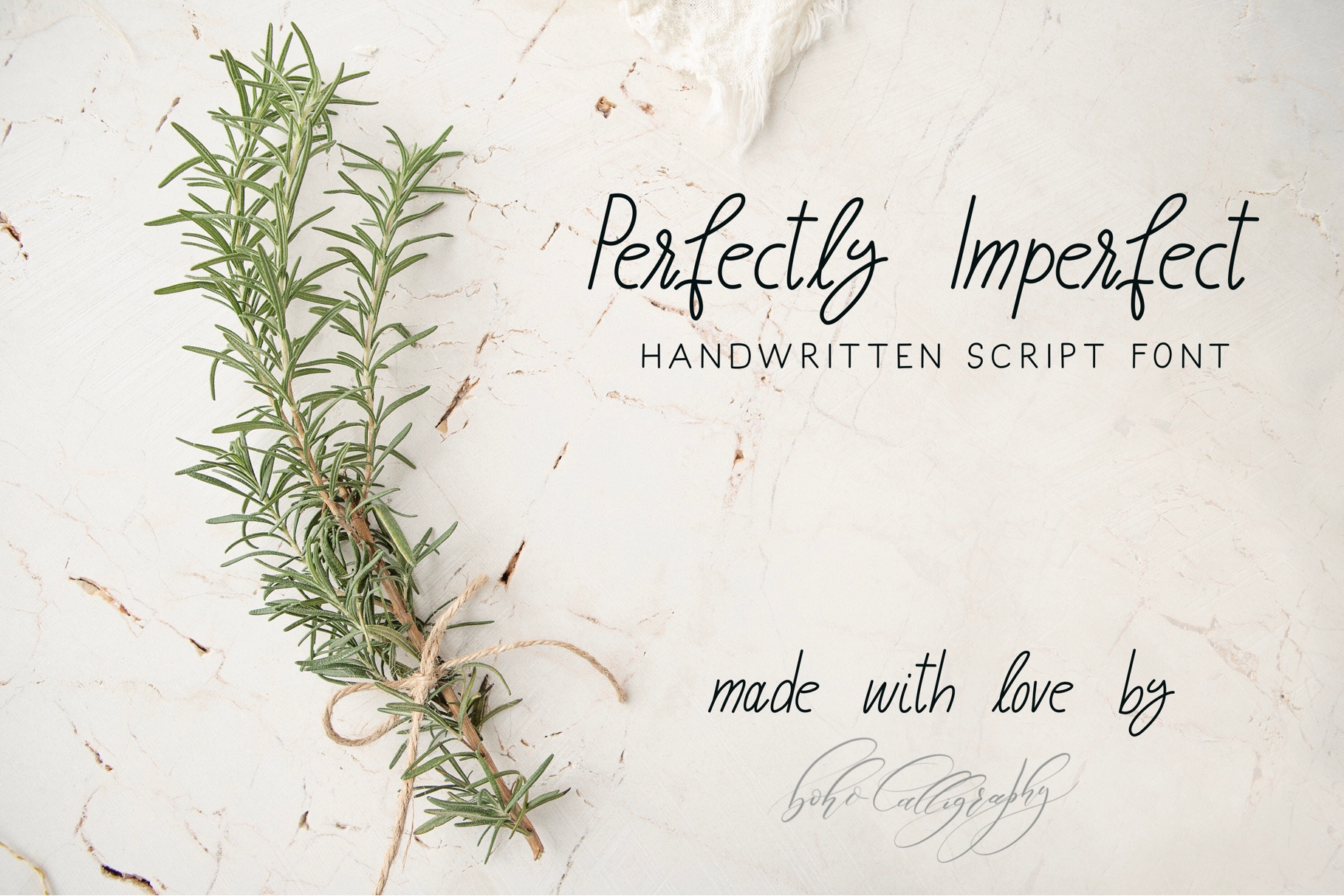
Perfectly Imperfect - Handmade font
Perfectly Imperfect FONT
Perfectly Imperfect is the handwritten script font made with love by me.
Perfectly Imperfect is suitable for: logos, branding, wedding invitations, business cards, greeting cards, posters, magazines, social media, planner prints and websites, digital planning and journals